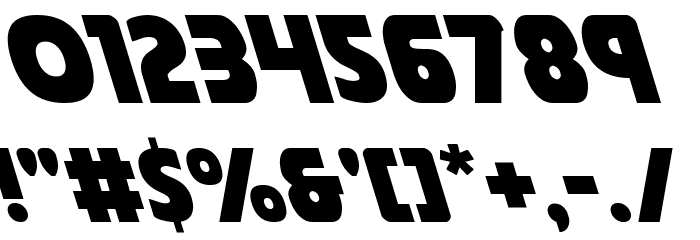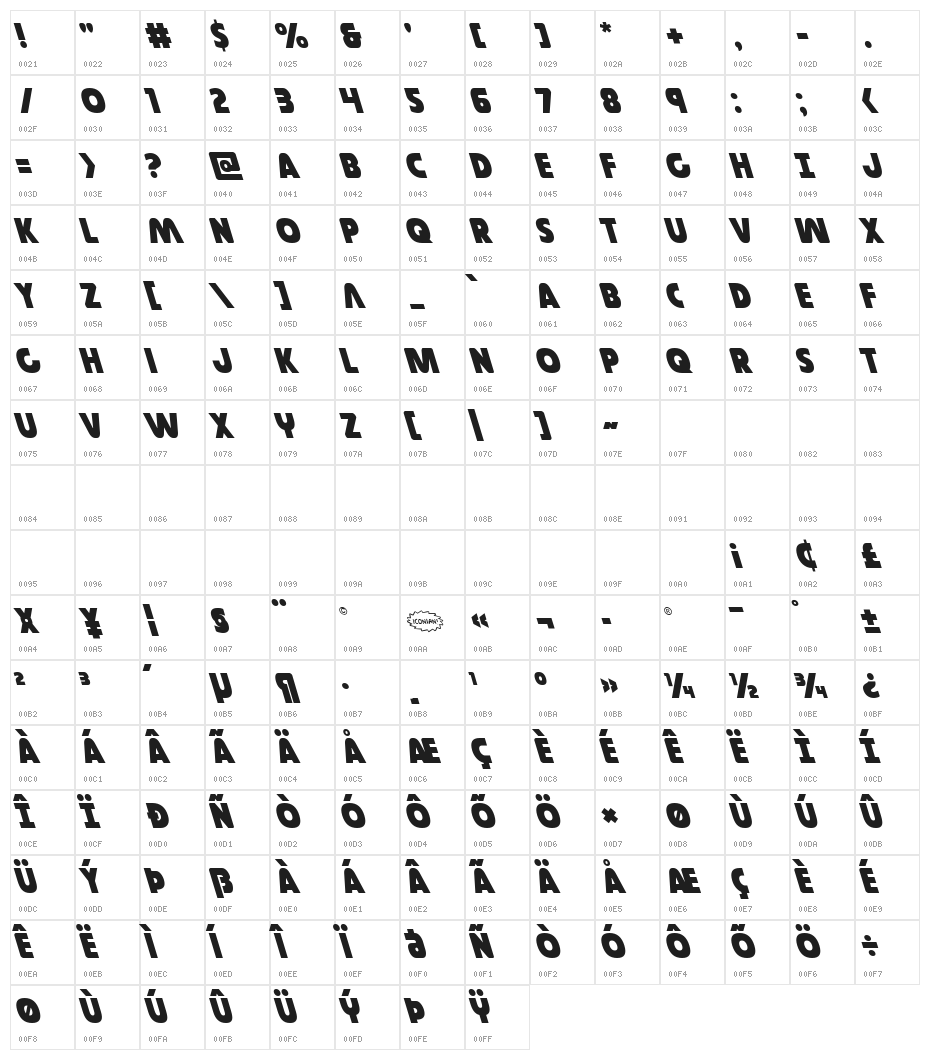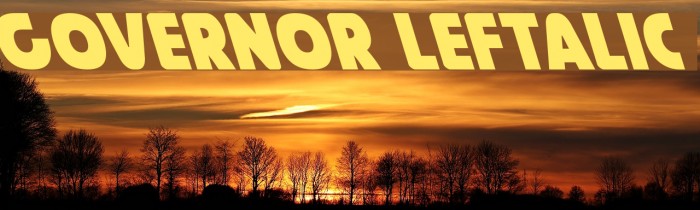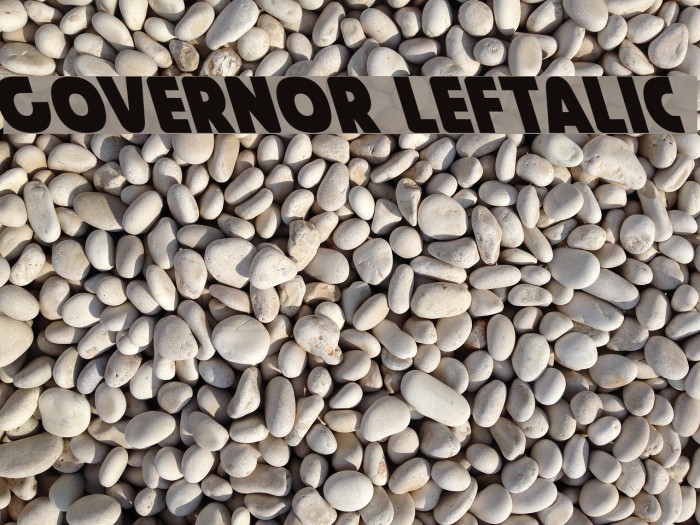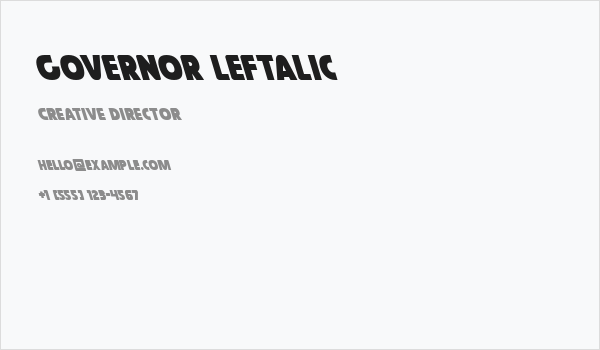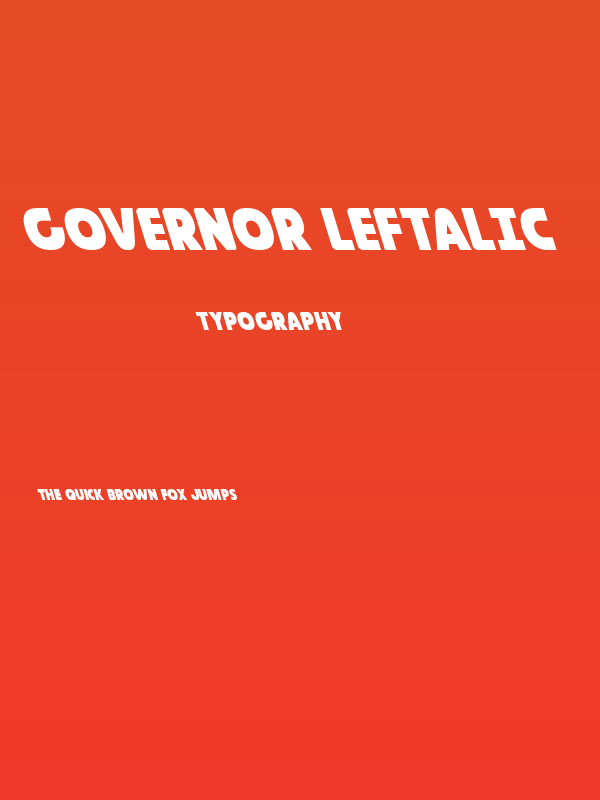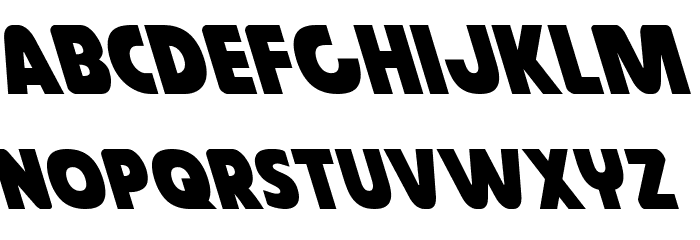
Governor Leftalic Font
Governor Leftalic Description
This font features a bold and dynamic style with a distinct leftward slant, giving it a sense of movement and energy. The characters are thick and robust, with a strong presence that makes them stand out. The uppercase and lowercase letters maintain a consistent weight, contributing to a cohesive look. The numbers and special characters are equally bold, ensuring readability and impact. This font's unique slant and boldness make it ideal for attention-grabbing designs.
| Proposed Projects | Ideal for posters, headlines, branding, and any project requiring a bold, impactful typeface. |